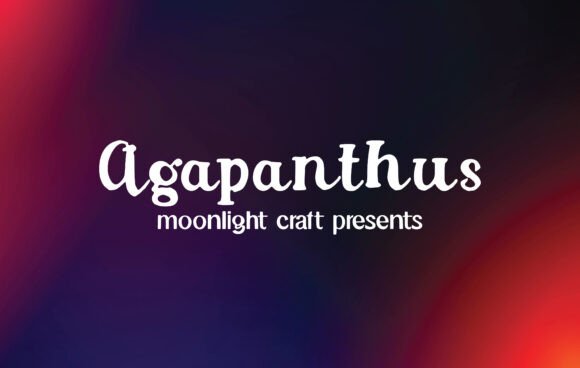
Discover the Beauty of Agapanthus Font: A Creative’s Best Friend
I’ll never forget the time I was working on a logo design project for a new boutique hotel. My client wanted a sophisticated yet playful feel, and I was struggling to find the perfect font. That’s when I stumbled upon Agapanthus, a lovely and beautiful handwritten font that instantly caught my eye. ✨ In this article, I’ll share my experience with Agapanthus, its features, and how to make the most of it in your designs.
A Personal Review of Agapanthus Font
- ✨ Elegant and flowing script with a personal touch
- 💫 Perfect for creating eye-catching logos, branding, and quotes
- 🎨 Versatile and adaptable to various design styles
While Agapanthus is an amazing font, there are a few things to keep in mind: 🤔
- ⚠️ Limited character set, which may not be suitable for complex typography
- ⚠️ May not be the best choice for body text or lengthy content
The Story Behind Agapanthus Font
Agapanthus font was designed with love and care by a talented type designer who wanted to create a beautiful and elegant script font. Inspired by the lovely Agapanthus flower, the designer aimed to capture its delicate and refined beauty in a font that’s both personal and sophisticated.
Q: What is Agapanthus font best used for?
Agapanthus font is perfect for creating eye-catching logos, branding, and quotes. It’s also great for creative projects, such as posters, social media graphics, and invitations.
Q: Is Agapanthus font suitable for body text?
While Agapanthus is a beautiful font, it’s not the best choice for body text or lengthy content. It’s better suited for headings, titles, and short paragraphs.